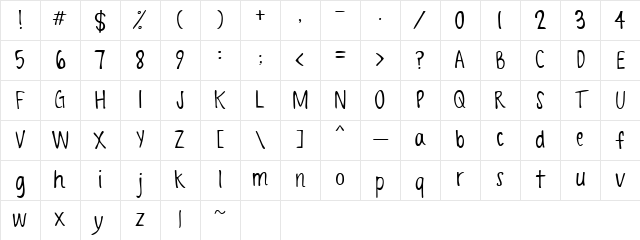
Style: Spring Script
Foundry: Katelyn Heins ￿
Designer: Katelyn Heins
Design Context for Spring Script
Spring Script flows with the natural rhythm of handwritten lettering, making it ideal for designs that call for warmth and personal expression.
Font Pairing: Combine Spring Script with a simple geometric sans for maximum contrast - the tension between flowing curves and clean structure is a classic typographic pairing.
Pro Tip: Use Spring Script for short runs of text - names, titles, or taglines. Extended body copy in script faces tires the eye quickly.